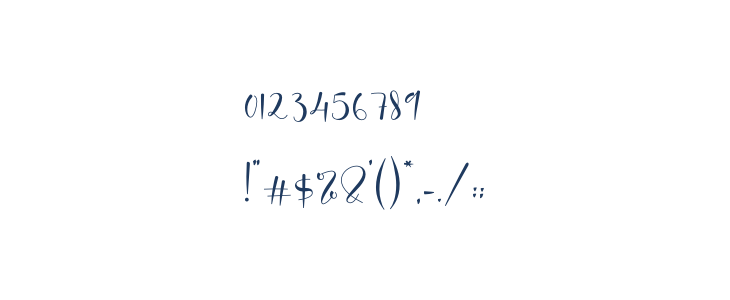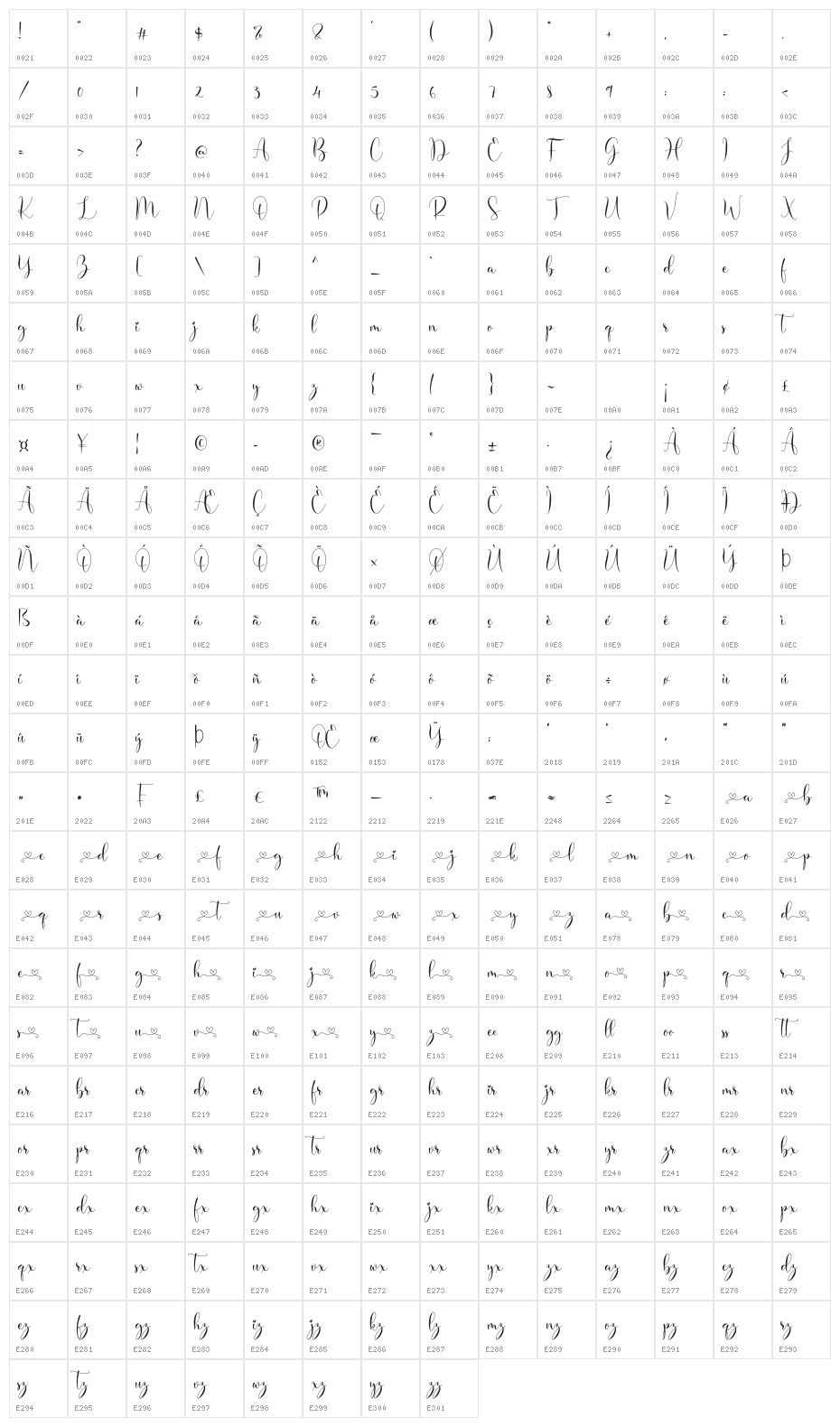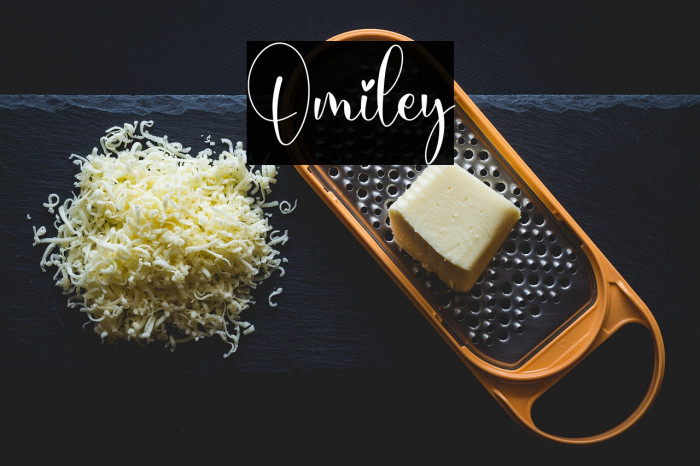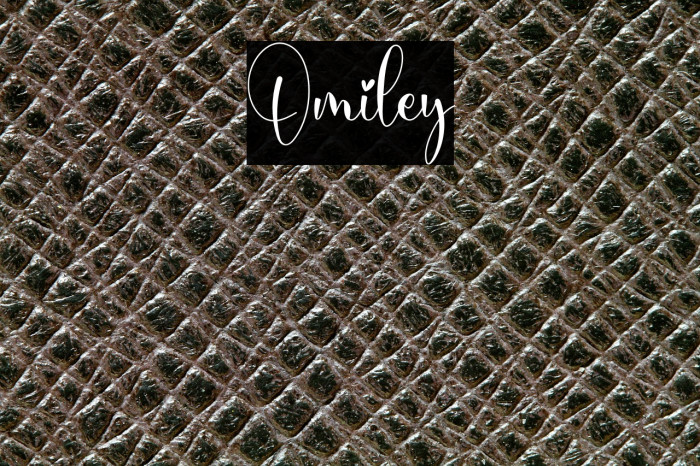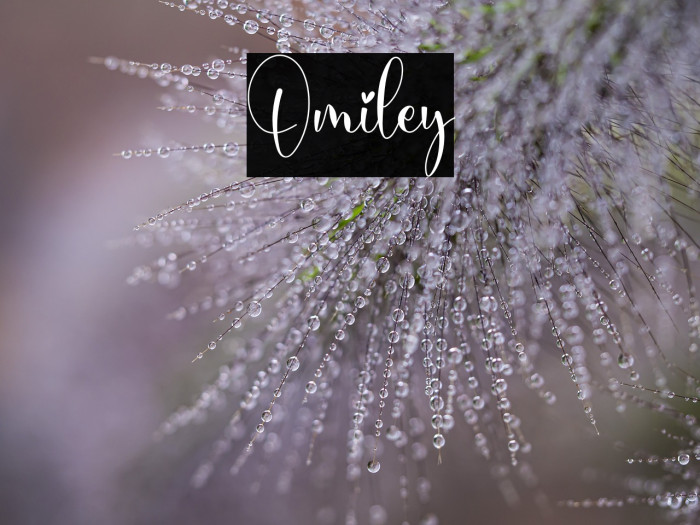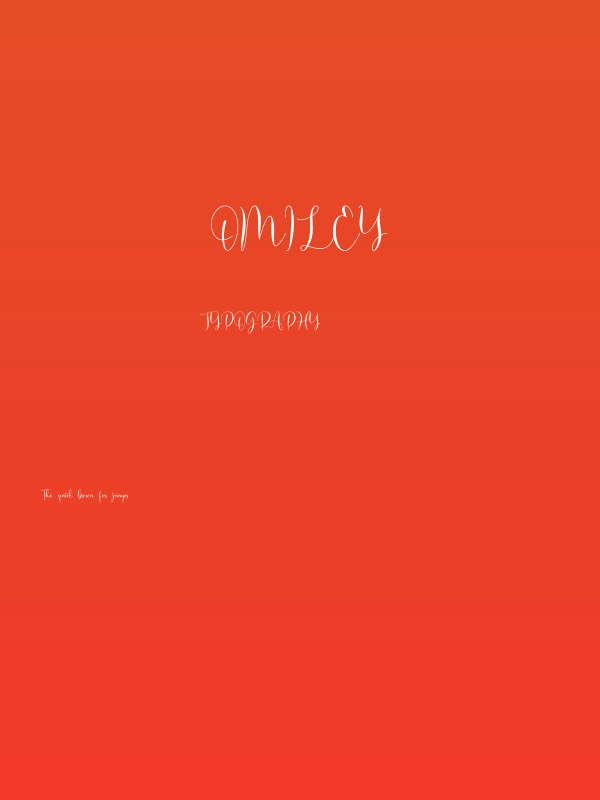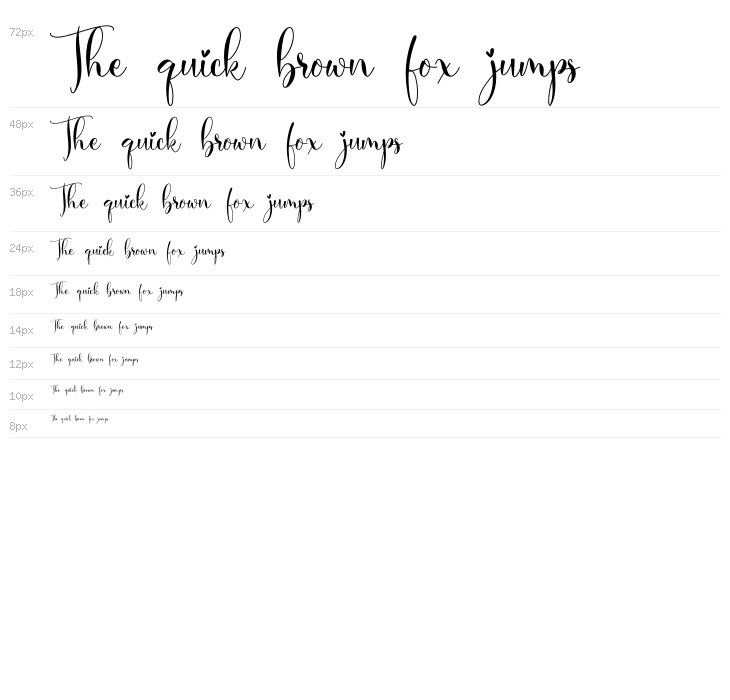
Omiley Font
Omiley Description
This elegant script font features a flowing, handwritten style with a modern touch. The uppercase letters exhibit a graceful, sweeping motion, while the lowercase letters maintain a consistent fluidity, creating a harmonious balance. The numerals and special characters are crafted with the same attention to detail, ensuring a cohesive look across all elements. The font's delicate strokes and subtle variations in line thickness add a sense of sophistication and charm, making it ideal for projects that require a personal, artistic touch.
| Use Case | Logos, Invitations, Greeting cards |